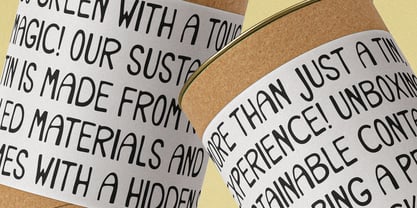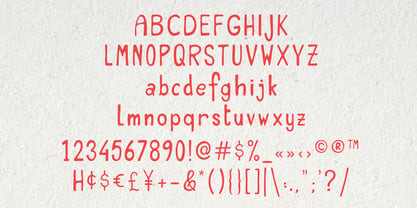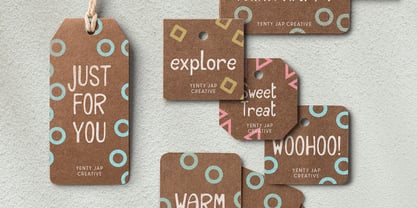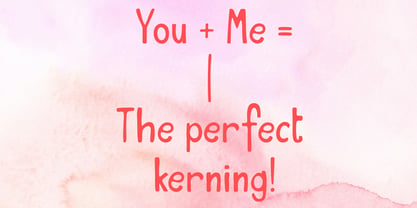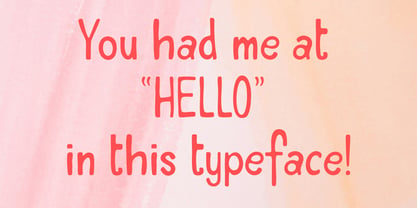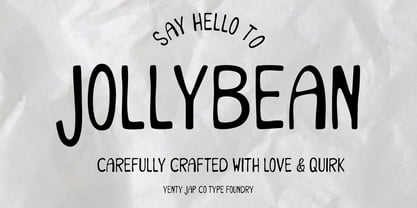
YJC Jollybean
by Yenty Jap Co
The YJC Jollybean Font Family was designed by Yenty Jap and published by Yenty Jap Co. YJC Jollybean contains 1 styles. More about this family
Meet YJC Jollybean, a quirky and cheerful handwritten font that brings joy and personality to any project! Designed with bouncy, imperfect strokes and a touch of whimsy, Jollybean is perfect for adding a fun and friendly feel to your designs.
Whether you’re working on greeting cards, kids’ illustrations, branding, social media graphics, packaging, or DIY projects, this font is sure to bring a smile to your audience. Its hand-crafted charm makes it ideal for creative professionals, small business owners, and designers who love a playful aesthetic.
Perfect for:
1. Branding & Logos
2. Invitations & Greeting Cards
3. Social Media Posts & Quotes
4. Stickers & Planner Designs
5. Packaging & Labels
6. T-Shirts & Merchandise